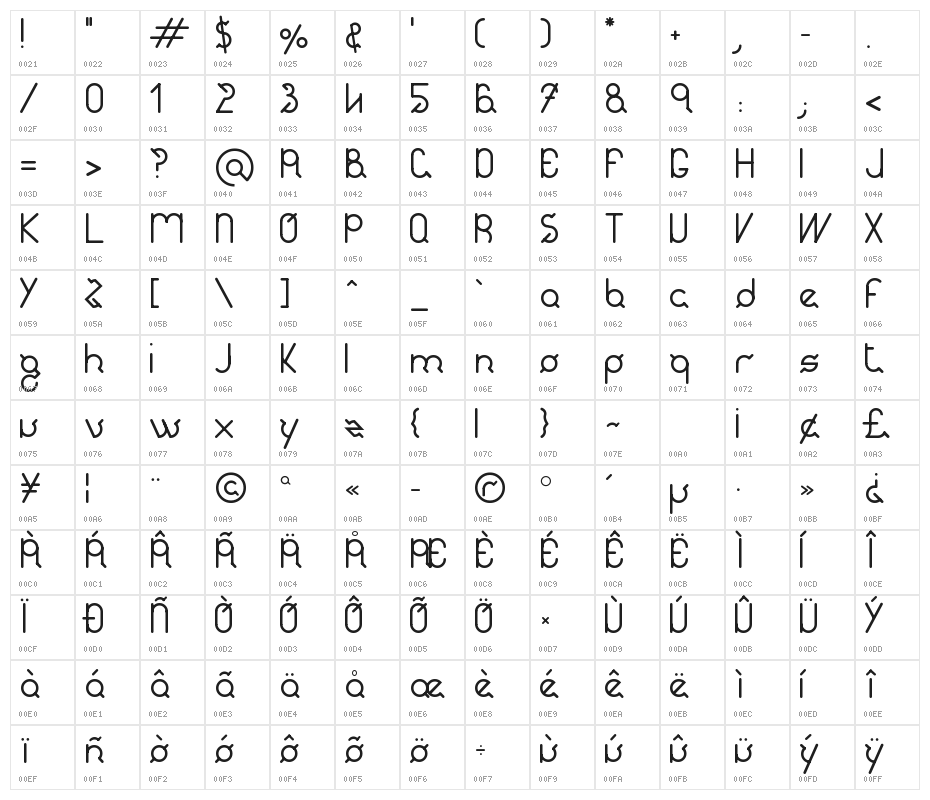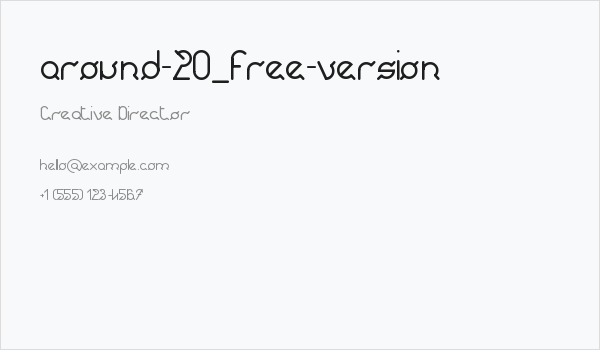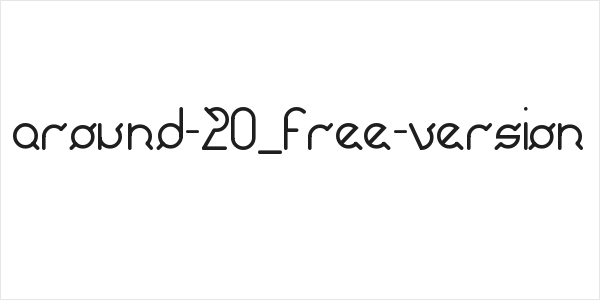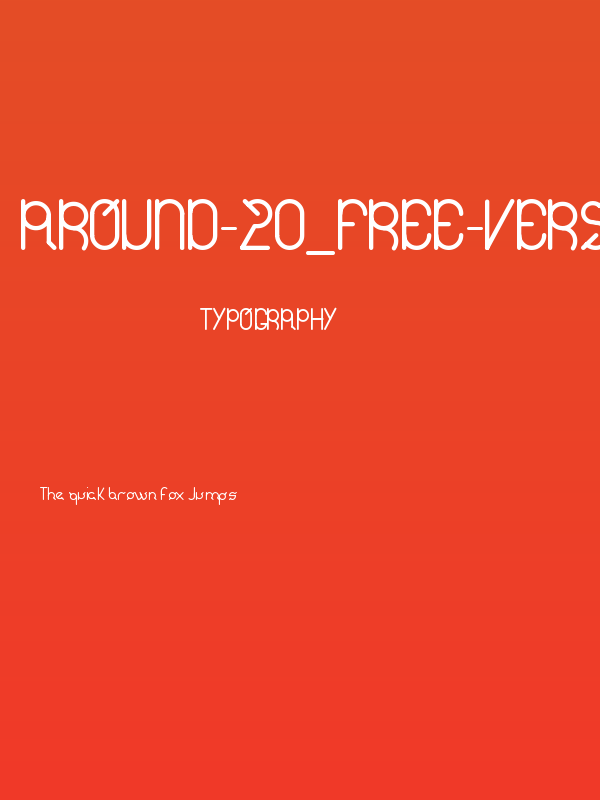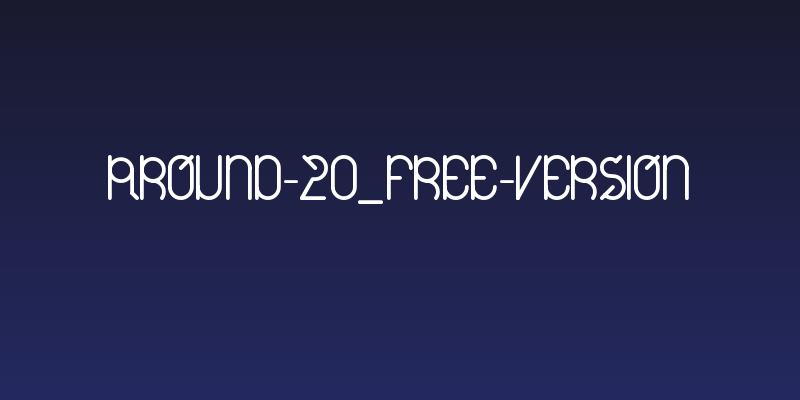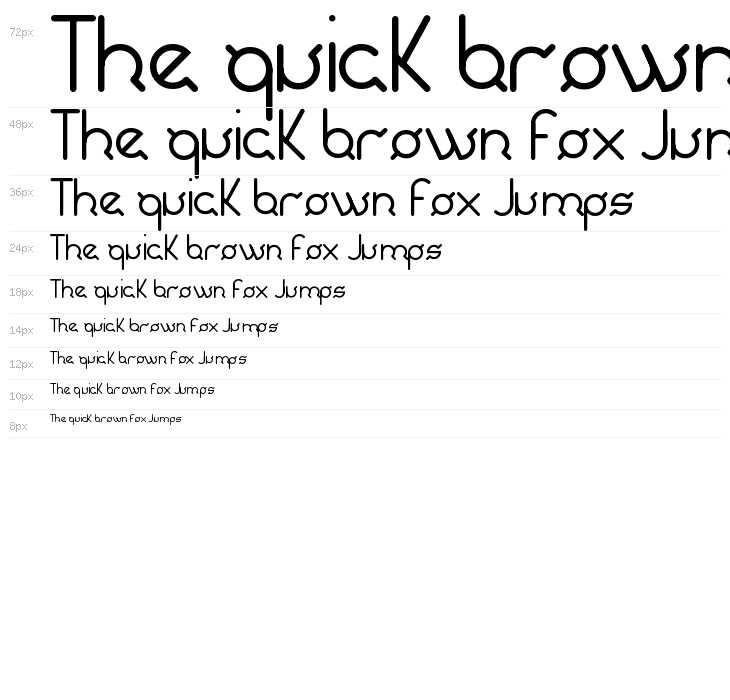
around-20_free-version Font
around-20_free-version Description
This font features a unique and modern design with a geometric and futuristic aesthetic. The characters are composed of clean, continuous lines with rounded edges, giving it a sleek and contemporary look. The uppercase and lowercase letters maintain a consistent style, with some characters incorporating unexpected angles and curves that add a distinctive flair. The numerals and special characters follow the same design principles, ensuring a cohesive appearance across all glyphs. This font's innovative style makes it stand out, offering a fresh take on traditional letterforms.
| Use Case | Logos, Headlines, Branding |
| Proposed Projects | Ideal for branding, logos, tech-related projects, and modern advertising campaigns. |